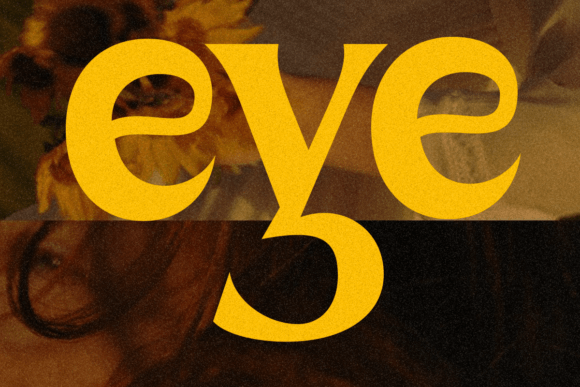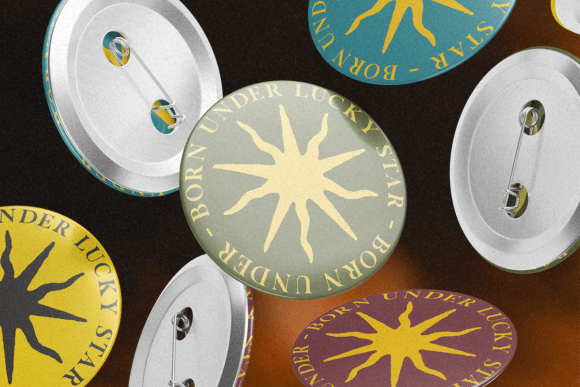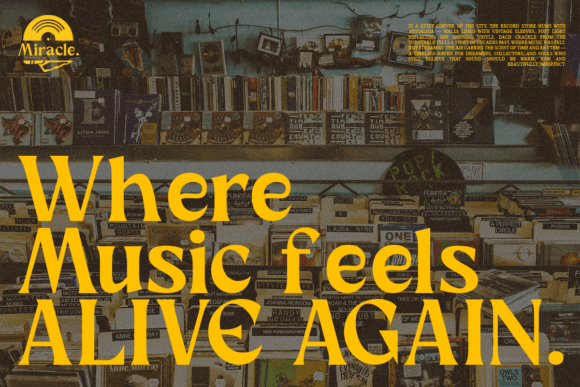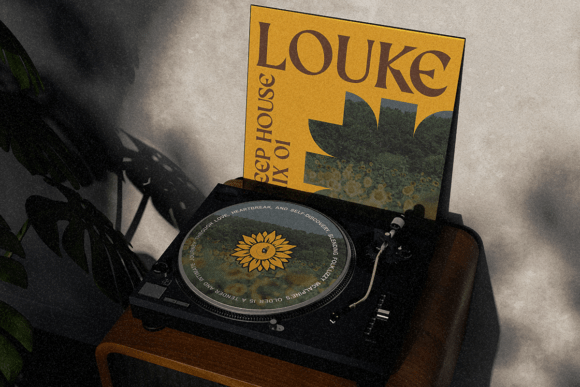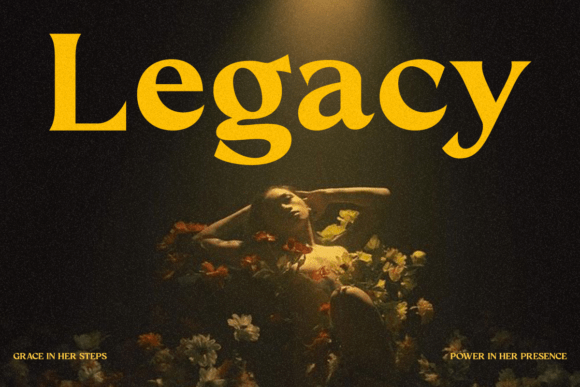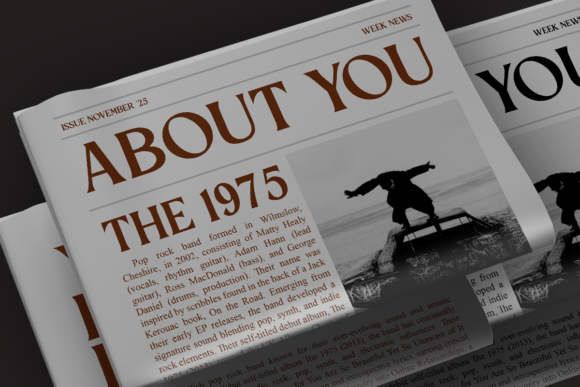
Eregine Font – Free Download
Introduction to Eregine Font
Make a lasting impression with Eregine, a retro display serif typeface that prioritizes sharp geometry and dramatic contrast.
Eregine features unique, thorn-like serifs and high-impact verticality, giving it a slightly mysterious yet undeniably premium vibe It captures the essence of classic high-end advertising from the late 20th century, reimagined for the digital age.
Key Features of Eregine Font